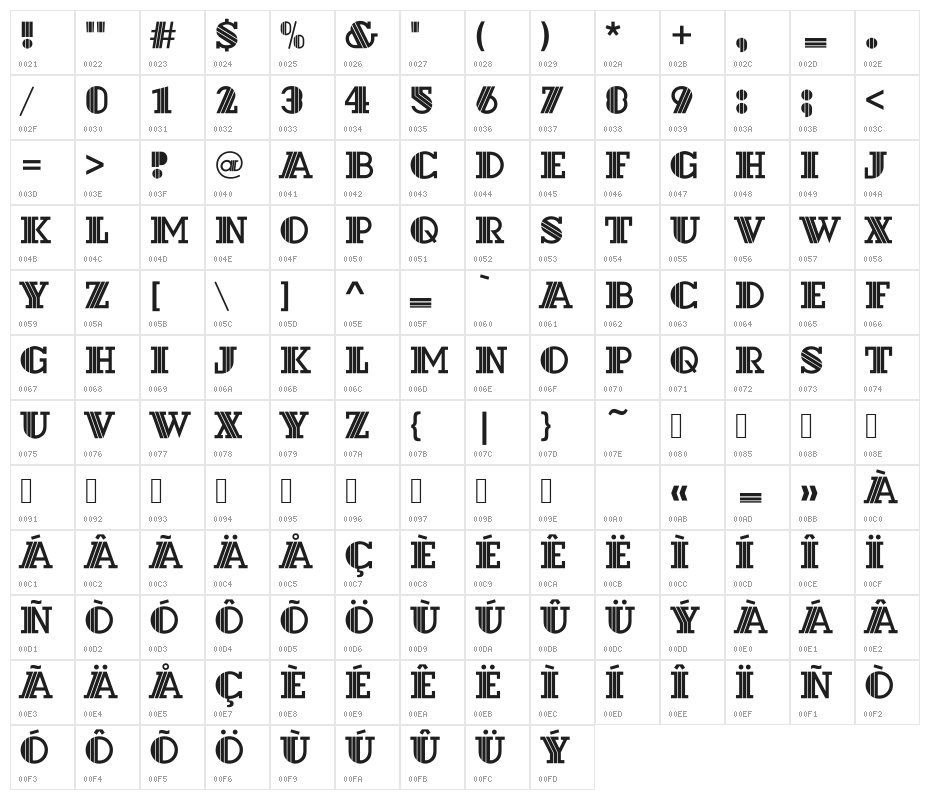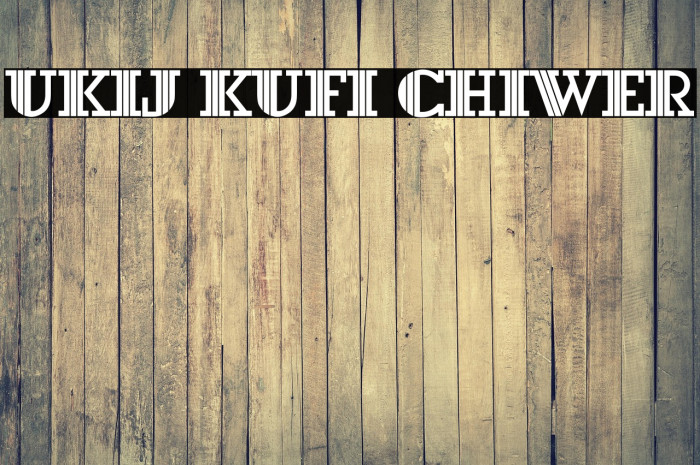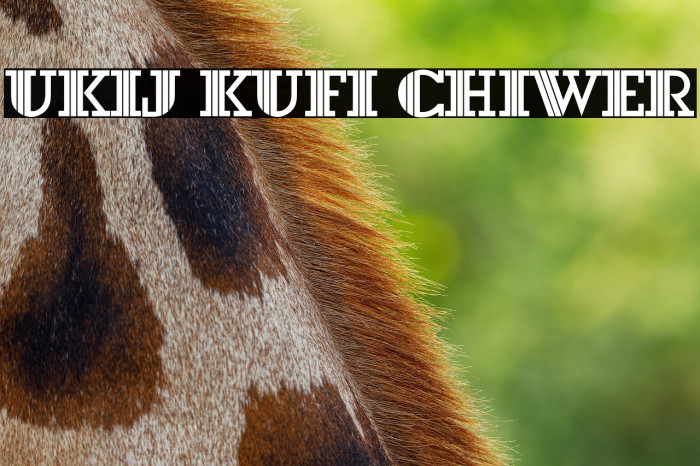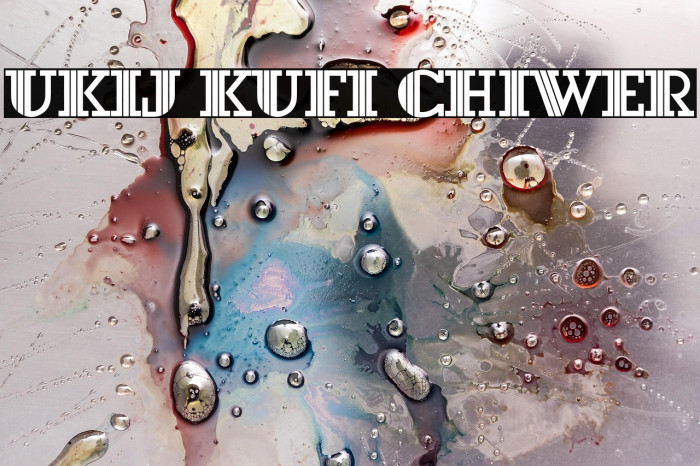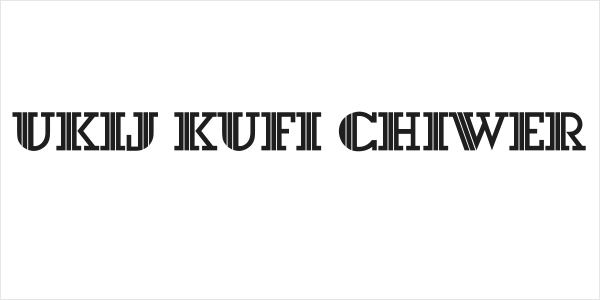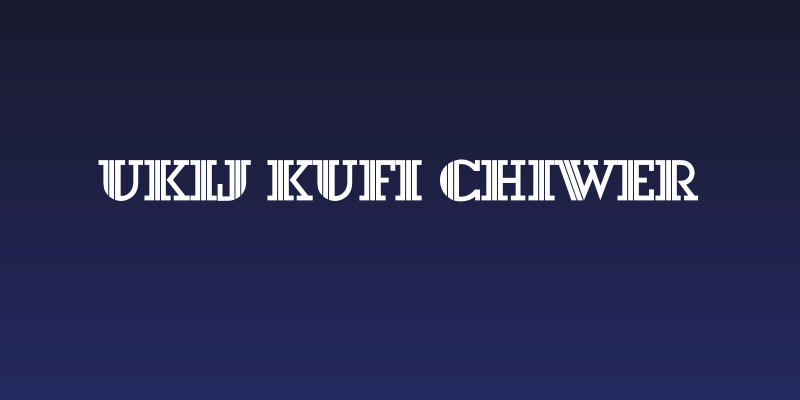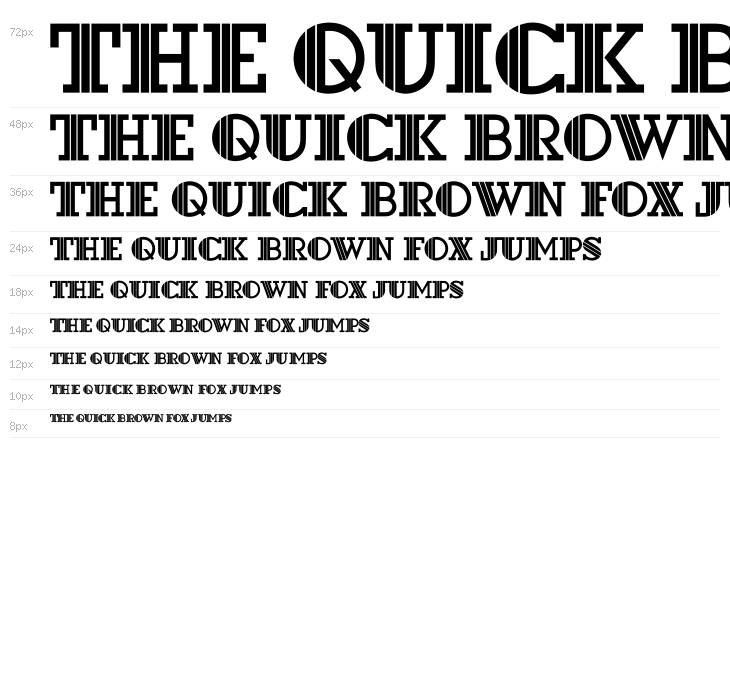
UKIJ Kufi Chiwer Font
UKIJ Kufi Chiwer Description
This font features a bold and striking design with a unique striped pattern running through each character. The geometric shapes and clean lines give it a modern and futuristic feel. The uppercase letters are particularly eye-catching, with their strong presence and distinctive style. The numerals and special characters maintain the same boldness, ensuring consistency across all elements. This font's design is both decorative and functional, making it suitable for a variety of creative projects.
Proposed ProjectsIdeal for branding, posters, album covers, and any project requiring a bold, modern aesthetic.